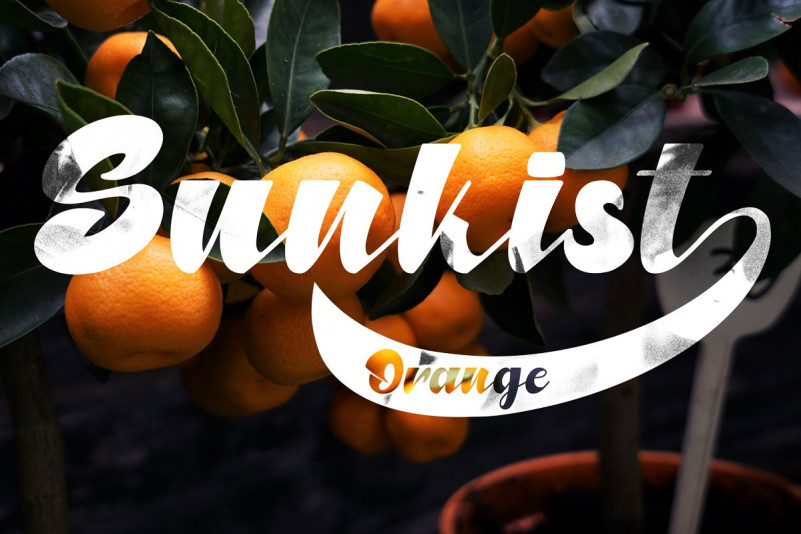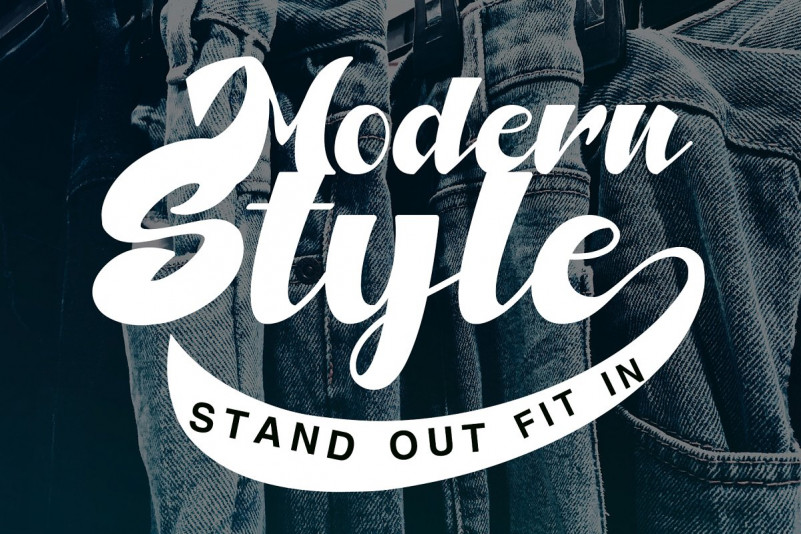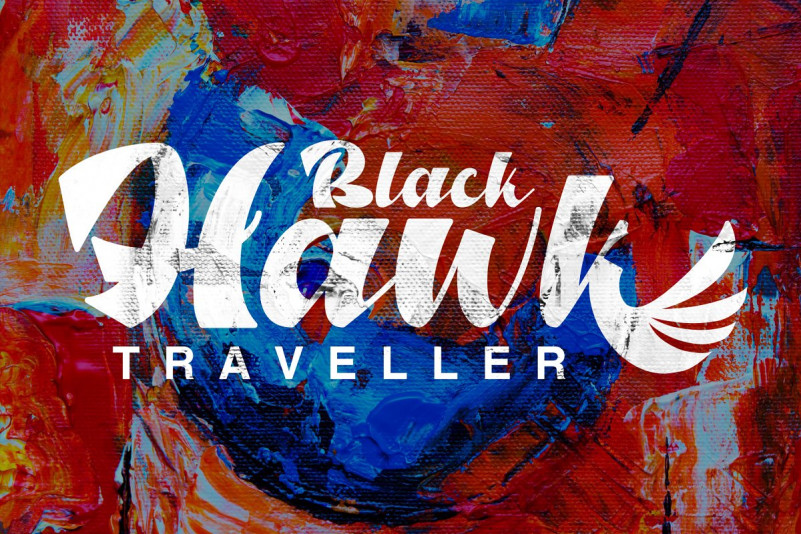
NORTH BLUE Font
NORTH BLUE – STRONG BOLD SCRIPT FONT – A stylish and quirky new bold script. North Blue font was created to look as close to a readable script as possible by including over a lot ligatures, titling, and swash.
This font is for those who want to show something smooth and modern. You may use this font if you want to attract modern buyers. The font design seems to show that you have a passion in the business and give your love to the products and services you are offered to customers.
Because it is an eye-catching bold script font, you can use it for a variety of purposes including design, branding, signature, logo, poster, and many more.